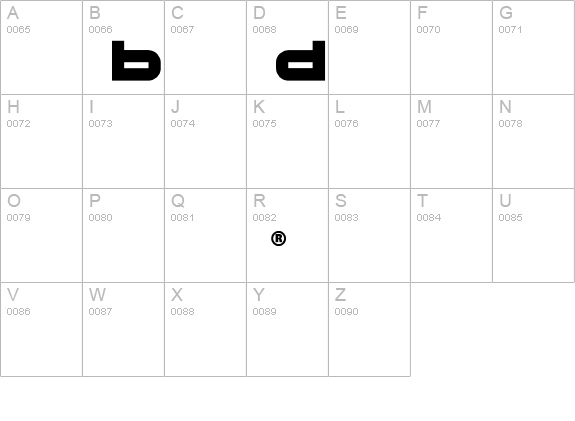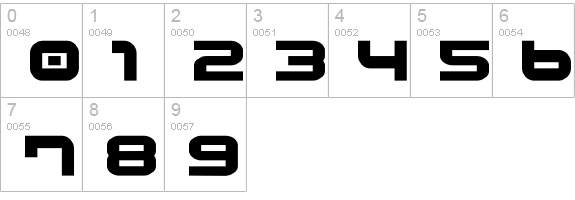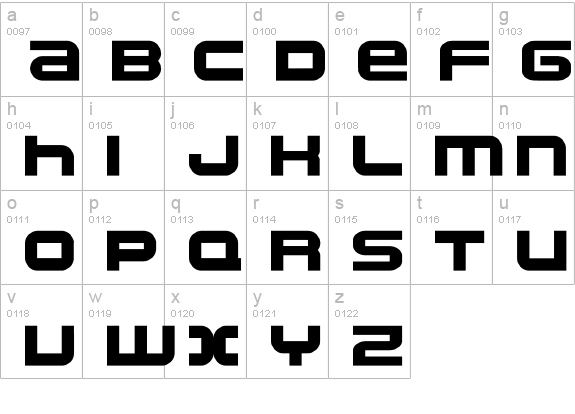
namco regular Font Details
namco regular is the standard, neutral variant in the namco typeface family \xE2\x80\x94 well suited to general body text, paragraphs, and standard typographic work.
Namco Regular Font is a stylish and versatile typeface that exudes creativity and professionalism. With its clean lines and modern aesthetic, Namco Regular is perfect for a wide range of design projects, from branding to web design. This font strikes the perfect balance between elegance and readability, making it a go-to choice for designers looking to make a statement. The best part? Namco Regular Font is available for free download at FontsMarket.com. Take advantage of this amazing opportunity to add a touch of sophistication to your designs without breaking the bank. Whether you're working on a logo, website, or print project, Namco Regular Font is sure to elevate your work to the next level. Download it today and unleash your creativity with this stunning font!